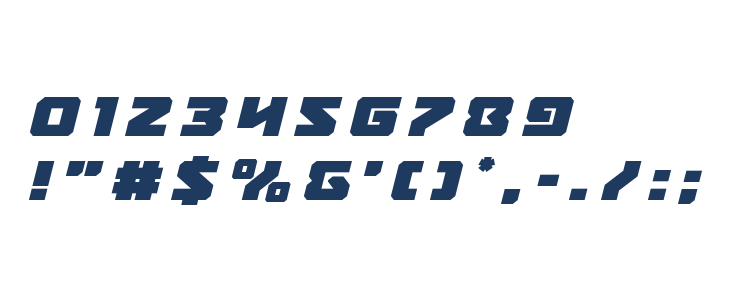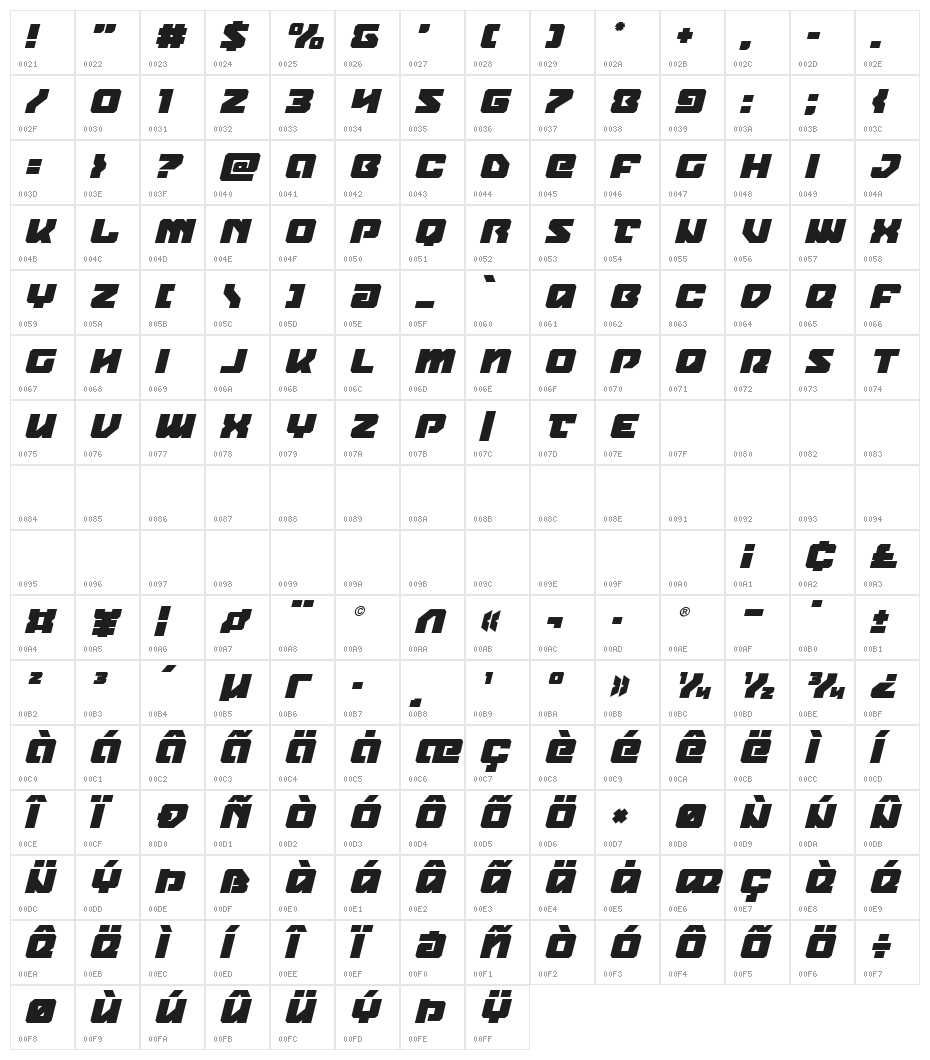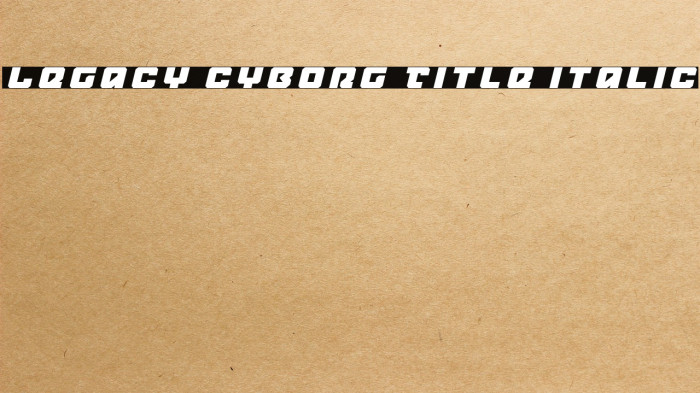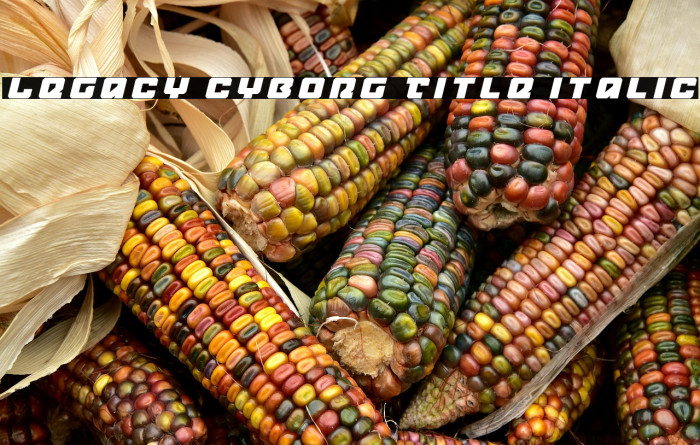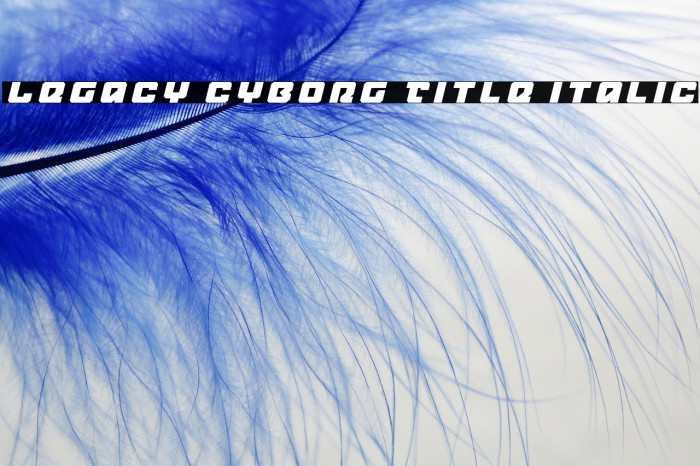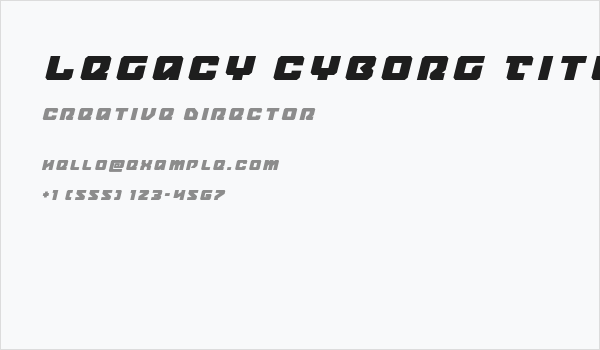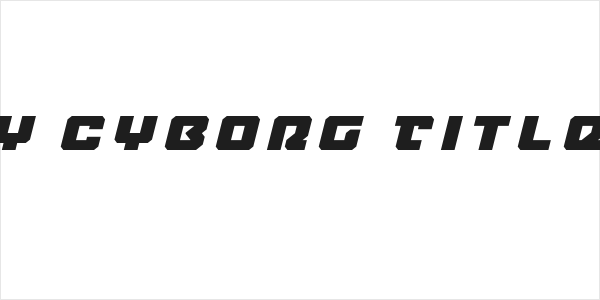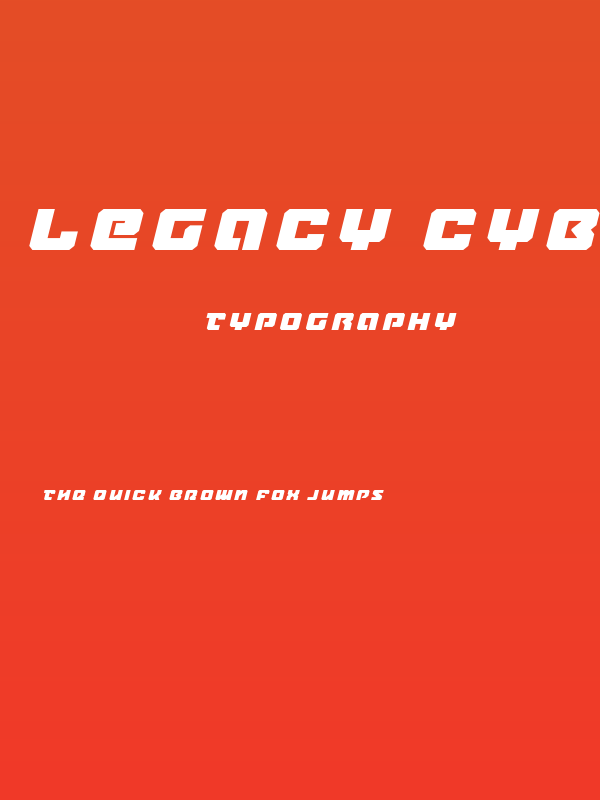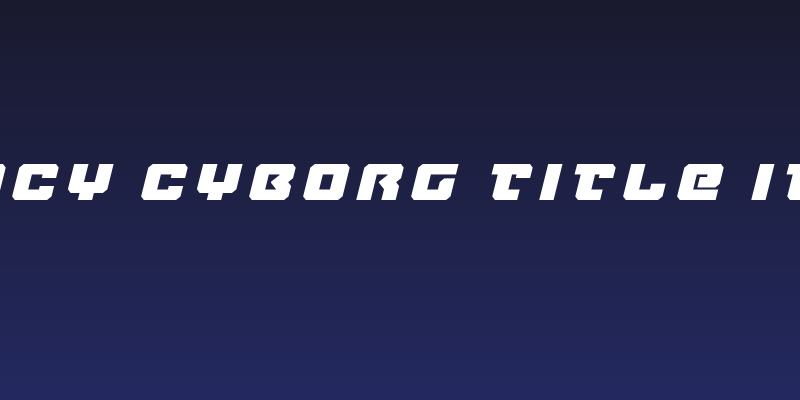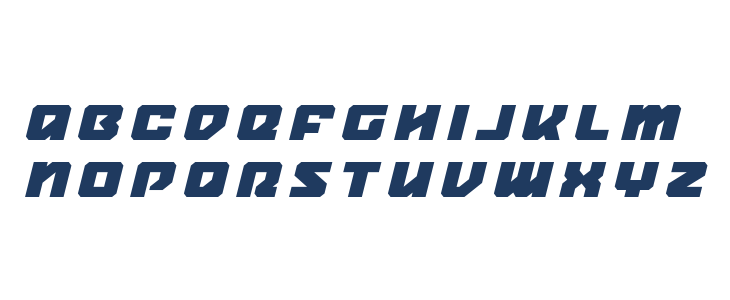
Legacy Cyborg Title Italic Font
Legacy Cyborg Title Italic Description
This font features a futuristic and bold design with sharp, angular edges that give it a distinctly modern and technological feel. The italicized style adds a dynamic and forward-leaning appearance, enhancing its sense of motion and energy. Each character is crafted with a consistent geometric structure, creating a cohesive and uniform look across the alphabet. The uppercase and lowercase letters maintain a strong presence, while the numerals and special characters are designed to complement the overall aesthetic. This font is ideal for projects that require a cutting-edge and innovative look, such as technology branding, sci-fi themed designs, or video game titles.
Proposed ProjectsIdeal for technology branding, sci-fi themed designs, video game titles, and futuristic posters.